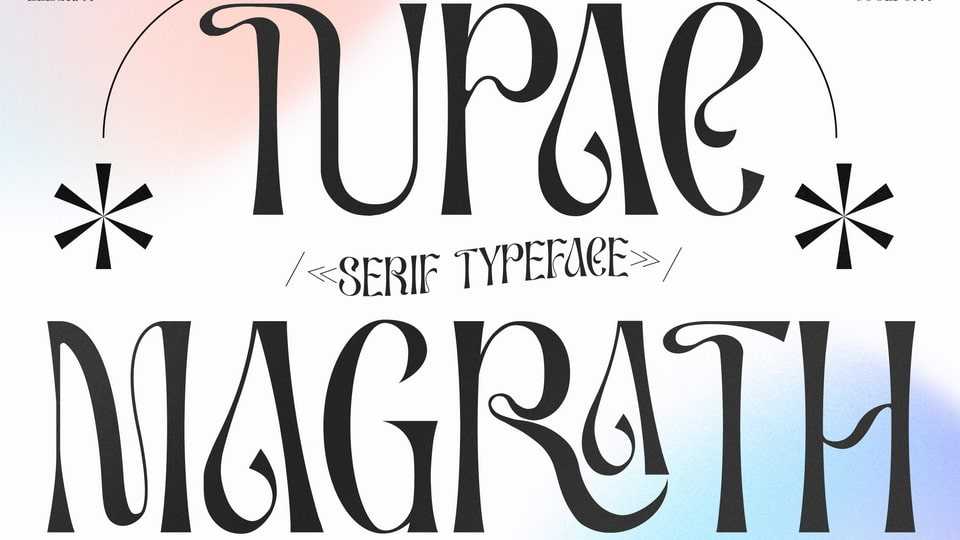
Download Tupac Magrath font a modern and classy typeface that has own unique style and fancy look. Tupac Magrath font is perfect for an elegant and luxury logo, book or movie title design, fashion brand, magazine, clothes, lettering, quotes, and so much more.